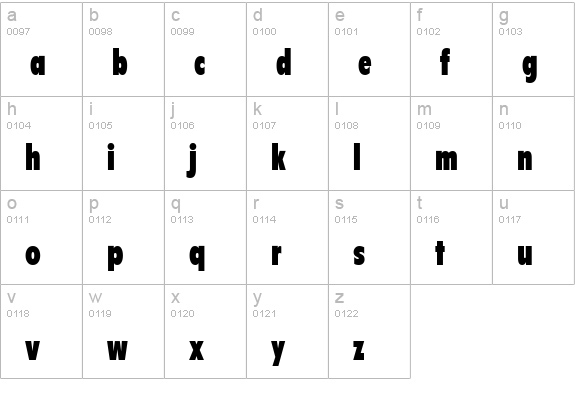
Bulletin Regular is the standard, neutral variant in the Bulletin typeface family \xE2\x80\x94 well suited to general body text, paragraphs, and standard typographic work.
Bulletin Regular is a versatile and classic typeface that exudes elegance and sophistication. With its clean lines and timeless appeal, this font is perfect for a wide range of design projects, from branding to editorial design. The strong and bold letterforms make it highly readable, making it an ideal choice for both print and digital applications. What sets Bulletin Regular apart is that it is available for free download at FontsMarket.com, making it an accessible option for designers looking to add a touch of refinement to their work without breaking the bank. Whether you're working on a logo, website, or marketing materials, Bulletin Regular is sure to make a lasting impression. Download this stunning font today and elevate your designs to the next level.